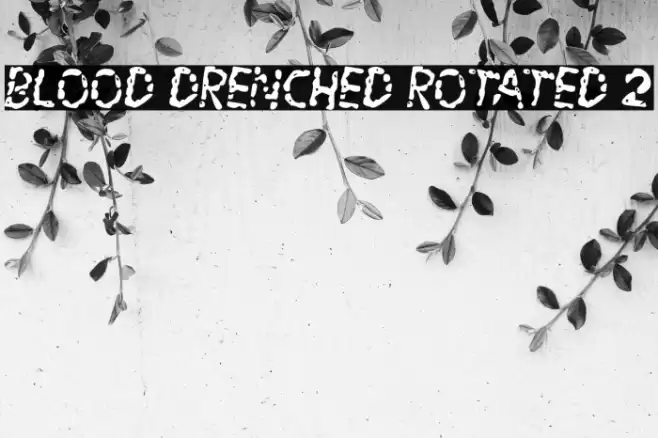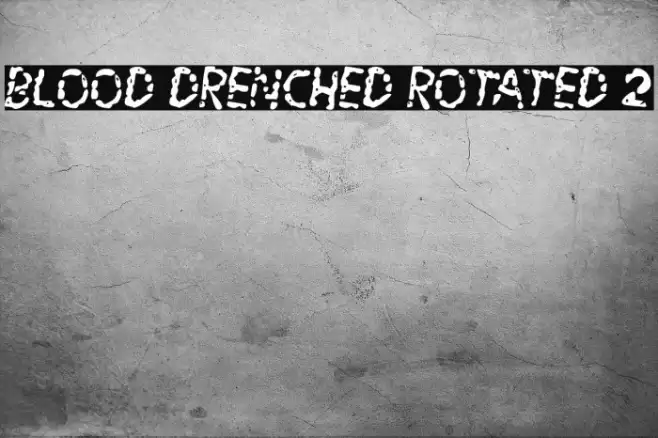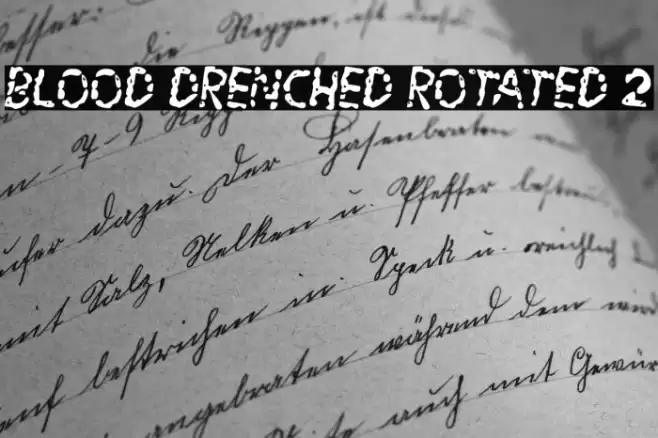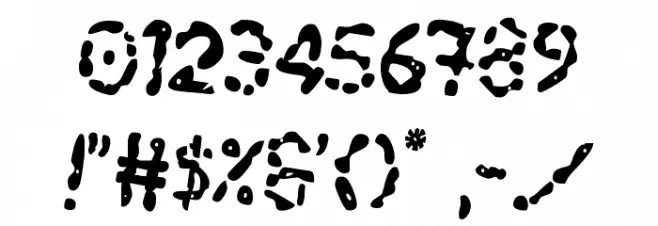
Blood Drenched Rotated 2 Font
Blood Drenched Rotated 2 Description
This font features a unique and eerie design, with characters resembling splatters or droplets, creating a dramatic and unsettling effect. The letters are irregularly shaped, giving an impression of fluidity and chaos, which is accentuated by the uneven distribution of weight across the strokes. The font maintains a consistent theme throughout, with both uppercase and lowercase letters exhibiting the same splattered style. Numbers and special characters follow suit, ensuring a cohesive look. This design is particularly striking and memorable, making it suitable for projects that require a bold and unconventional aesthetic.
A dramatic, splatter-style font with irregular, fluid characters from Uncategorized fonts.
- Proposed Projects: Ideal for horror-themed posters, Halloween invitations, edgy album covers, or any project needing a bold, unsettling aesthetic.